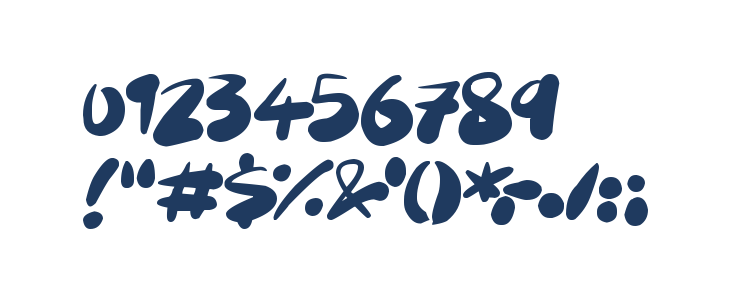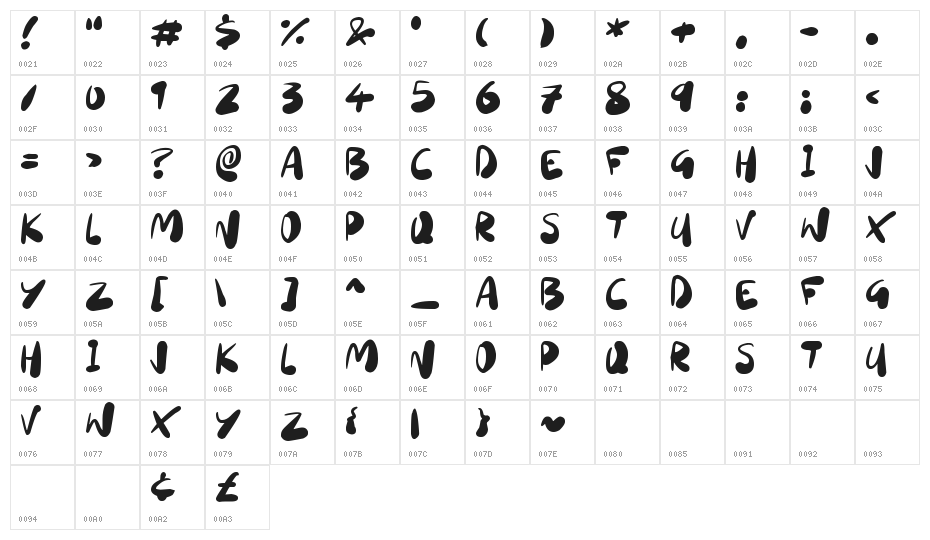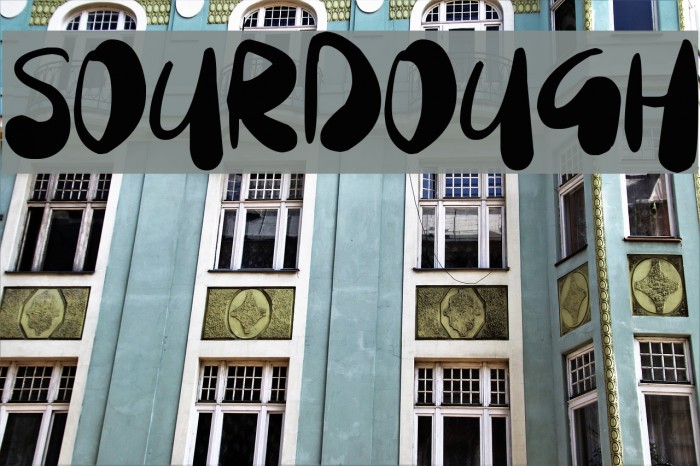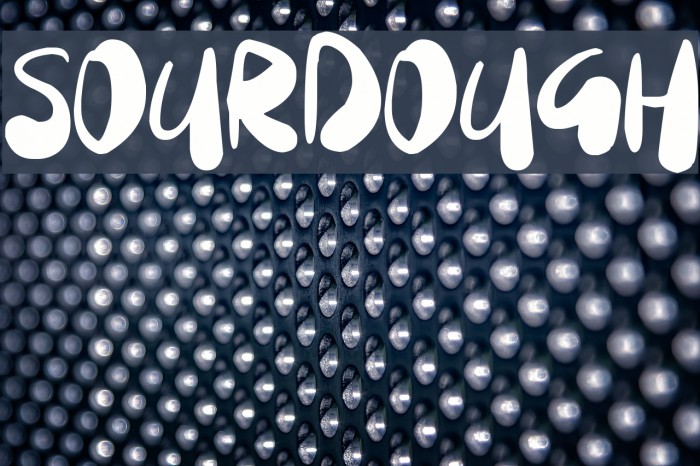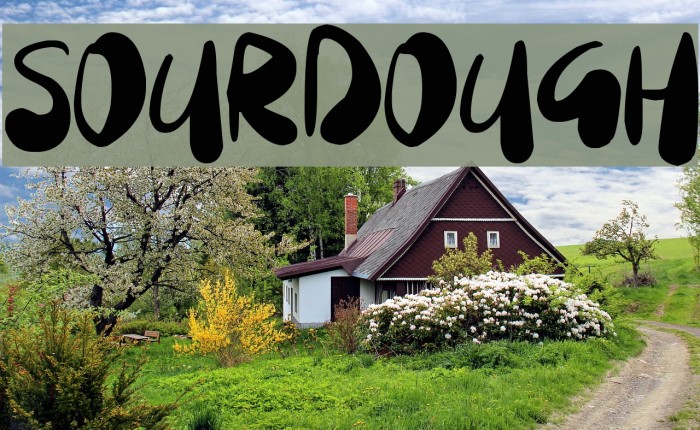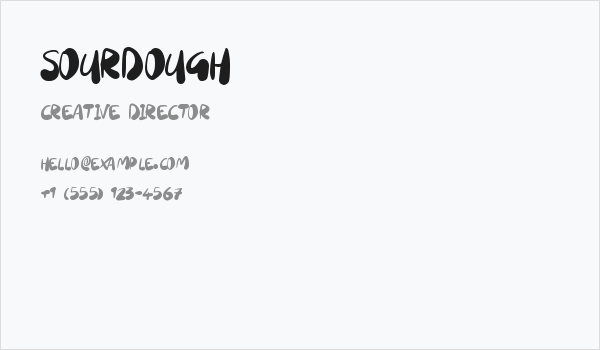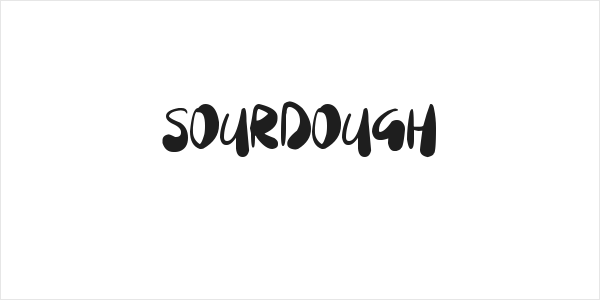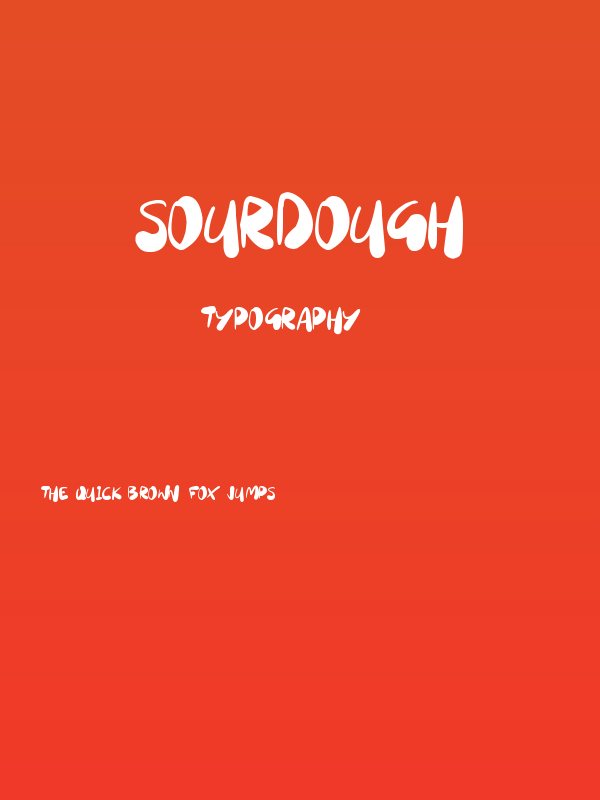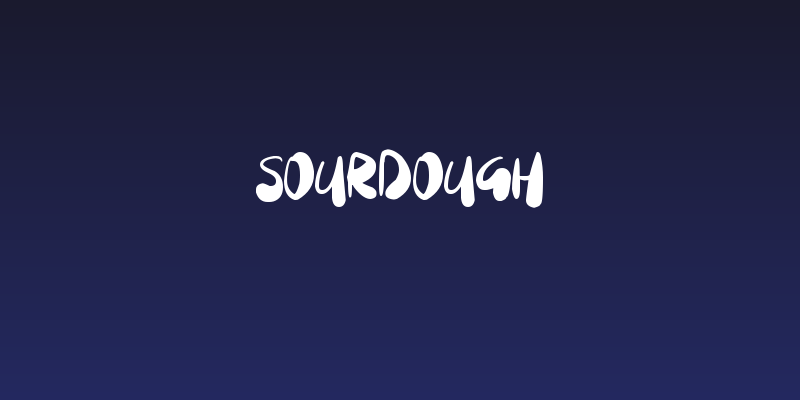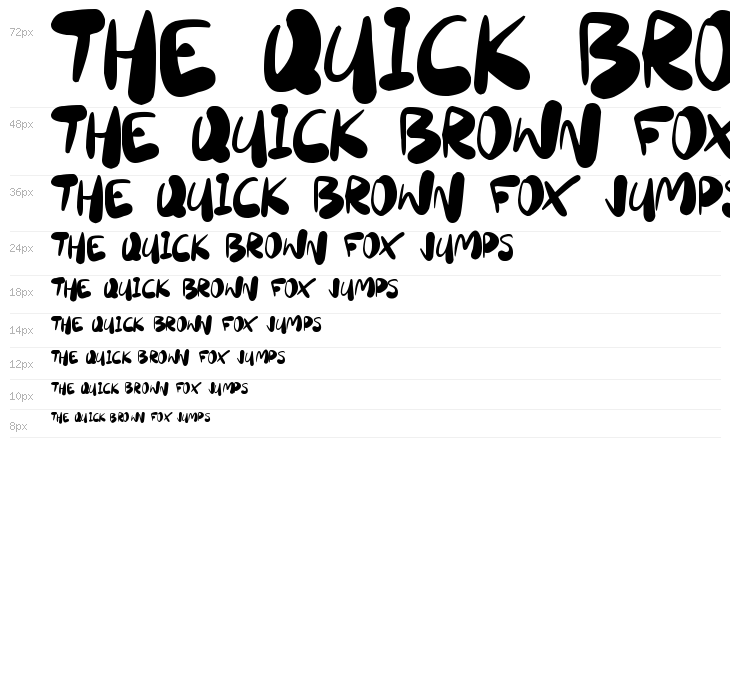
Sourdough Font
Sourdough Description
This font features a bold and playful style with a handwritten appearance. The characters are thick and rounded, giving them a friendly and approachable look. The letters have a slightly irregular form, adding to the casual and informal feel. The overall design is reminiscent of brush strokes, with a dynamic and energetic flow. This font is highly legible, with each character distinct and easily recognizable. The numbers and special characters maintain the same playful aesthetic, ensuring consistency throughout the font set.
| Proposed Projects | Ideal for children's books, playful branding, casual invitations, and creative posters. |